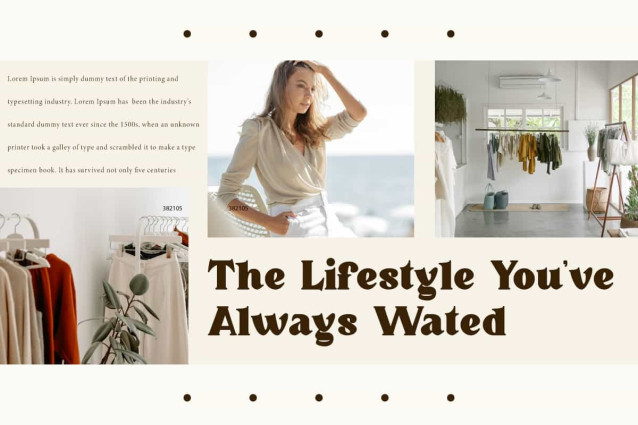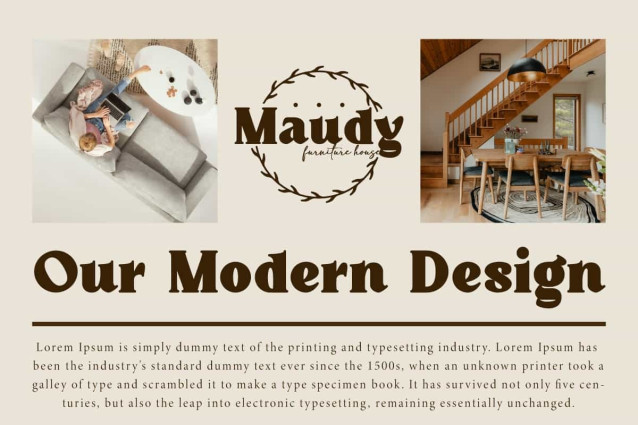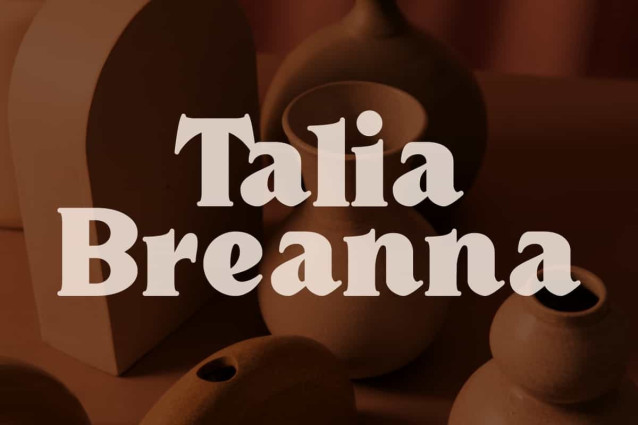
Talia Breanna Font
Talia Breanna Font is a strong serif display font with a retro and classic touch. Its solid letterforms and distinctive details give it a bold yet elegant character. This font will be perfect for various projects, such as branding image, signage, brochure, label, logo design, magazine cover, mockup template, packaging, poster, quotes, signage, stationery, website, and more!
Talia Breanna Font includes a complete set of Uppercase and Lowercase Basic Characters, Numbers, Punctuation, and Symbol. With a slightly vintage look this is a perfect choice for variety industry, such as cafe, advertising, beauty product, fashion, cafe, craft, event or wedding organizer, photography, real estate, restaurant, spa, travel, and so on.